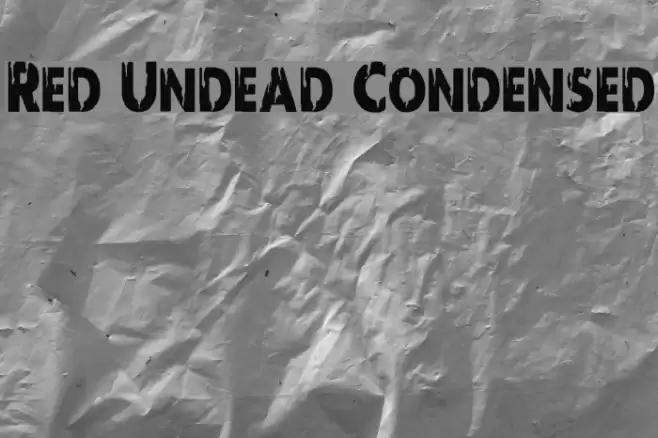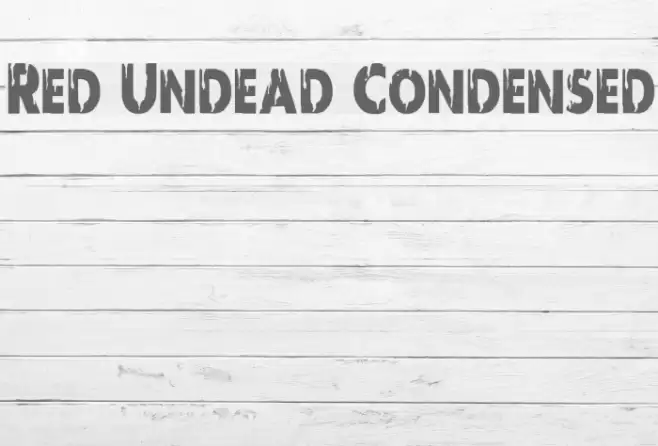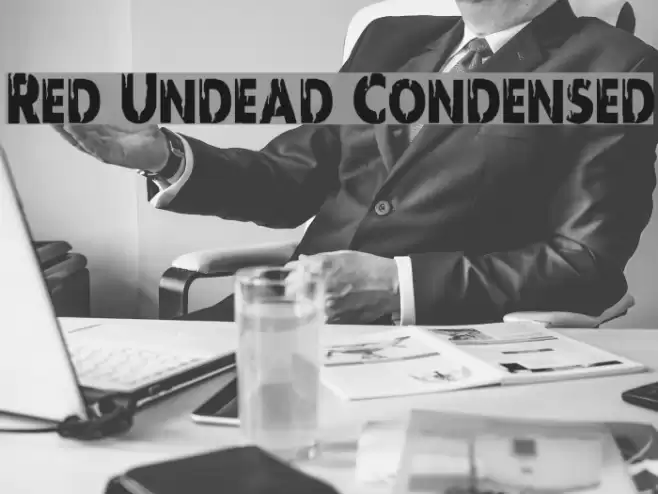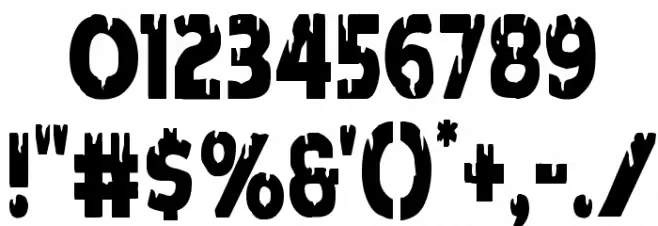
Red Undead Condensed Font
Red Undead Condensed Description
This font features a bold and distressed style, with a condensed structure that gives it a strong and impactful appearance. The characters are designed with irregular edges, creating a rugged and worn look that adds a sense of edginess and drama. The uppercase and lowercase letters maintain a consistent height, while the numbers and special characters follow the same distressed theme. This font is ideal for projects that require a bold statement or a gritty, urban aesthetic.
A bold, distressed, and condensed font with a rugged appearance from Horror fonts.
- Proposed Projects: Perfect for horror-themed posters, edgy branding, video game titles, and streetwear designs.